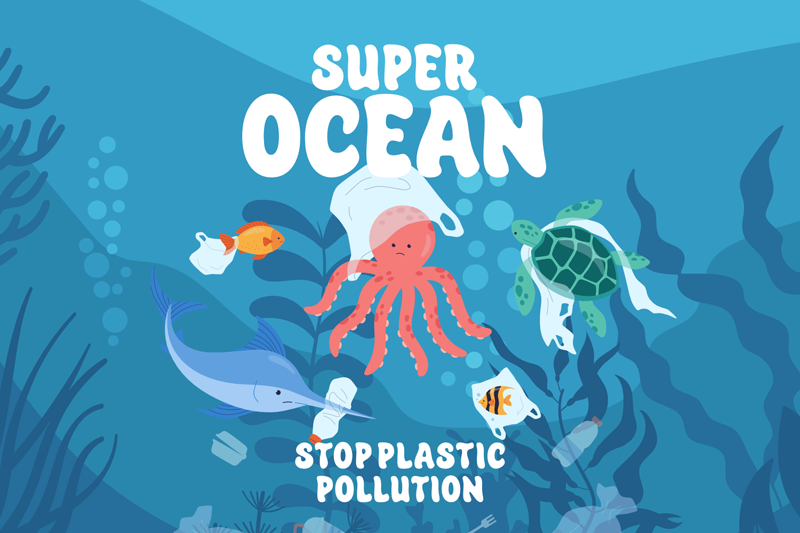
Preview and download Super Ocean Font. Created by fsuarez913 in Fancy Cartoon styles with Free for personal use license.
This font is for PERSONAL USE ONLY!. If you want to use this font for commercial purposes, you will need to purchase a commercial license. You can purchase a commercial license at https://allsuperfont.com/product/super-ocean/ Introducing "Super Ocean": A Casual Dive into the Deep End Super Ocean is a typeface designed to evoke the carefree spirit of the open sea, inviting you to dive into a world of casual elegance. |